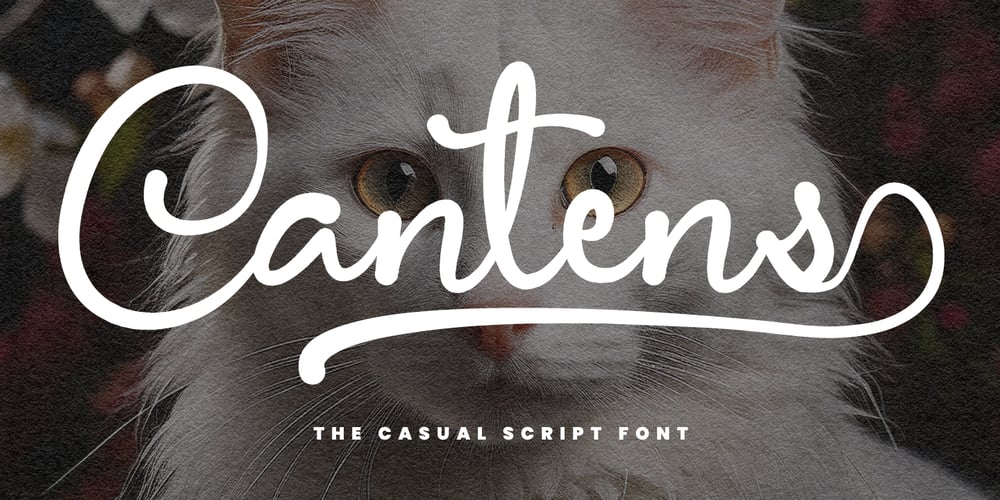
MC Cantens Font Family was designed by Gilang Maulana and published by Maulana Creative. MC Cantens contains 1 styles and family package options. Give your designs an authentic brush handcrafted feel. “Cantens Casual Script Font Duo” is perfectly suited to signature, stationery, logo, typography quotes, website header, branding and more.Thanks for use this font.Maulana Creative